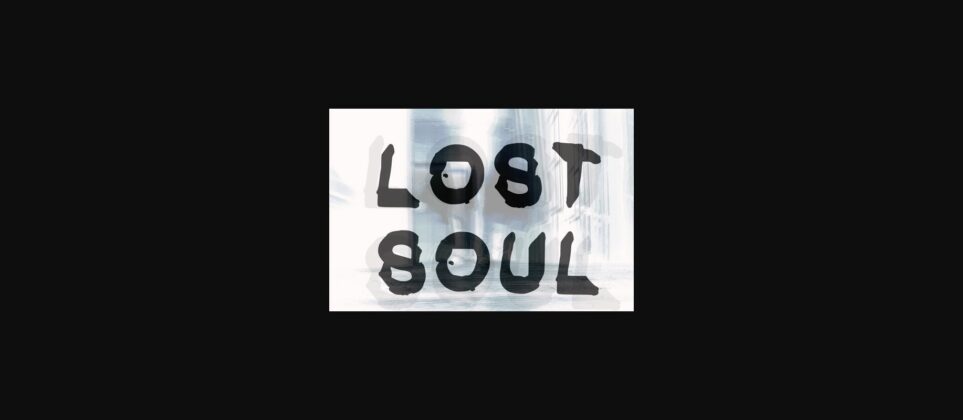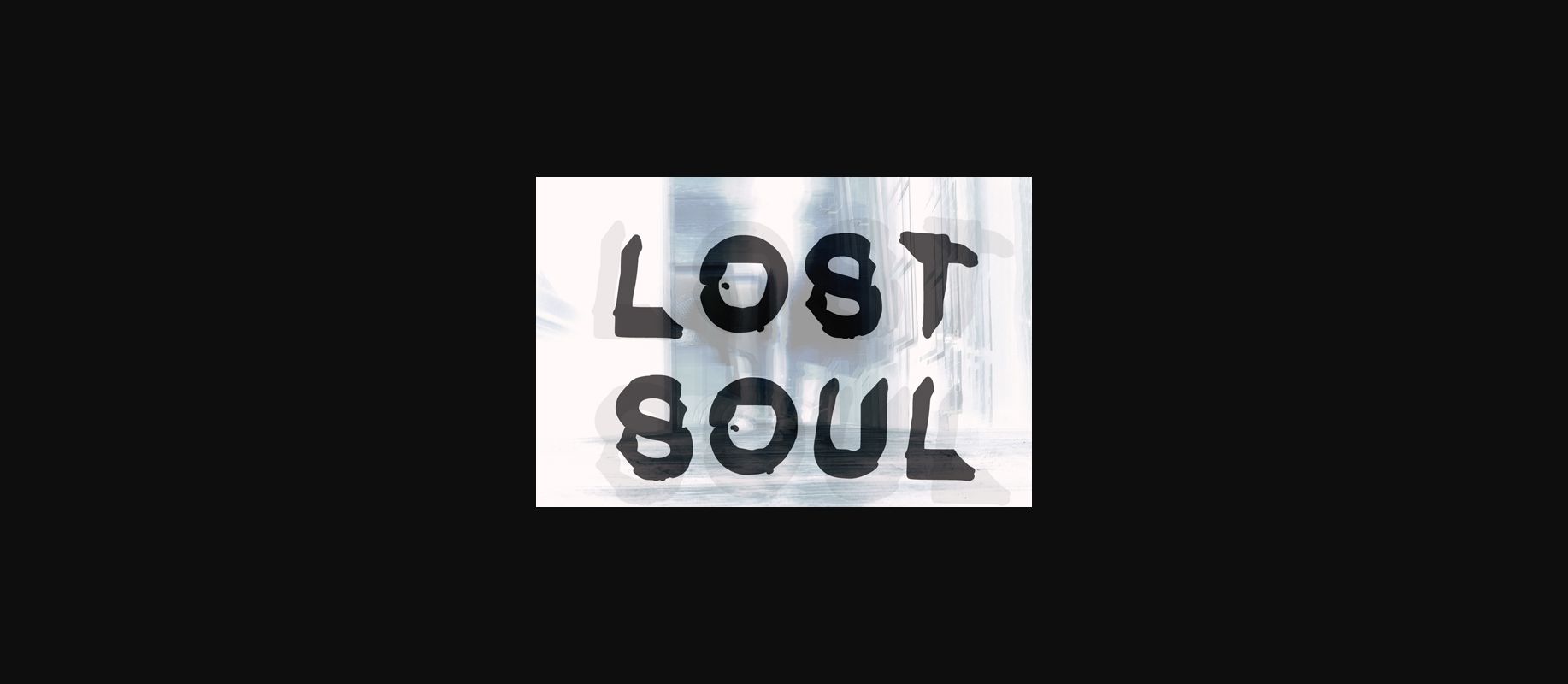
About Lost Soul Font
We all love a ghost story. Here is a spooky font for use for a display, cover or book heading. Use with caution and only on Halloween.